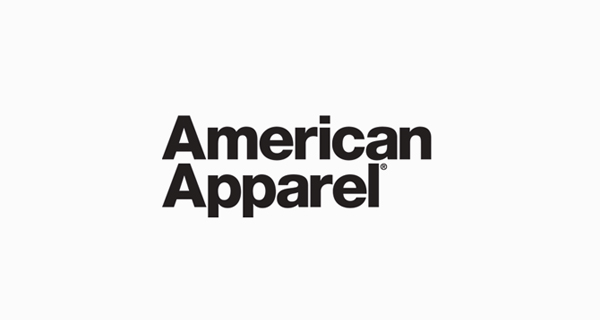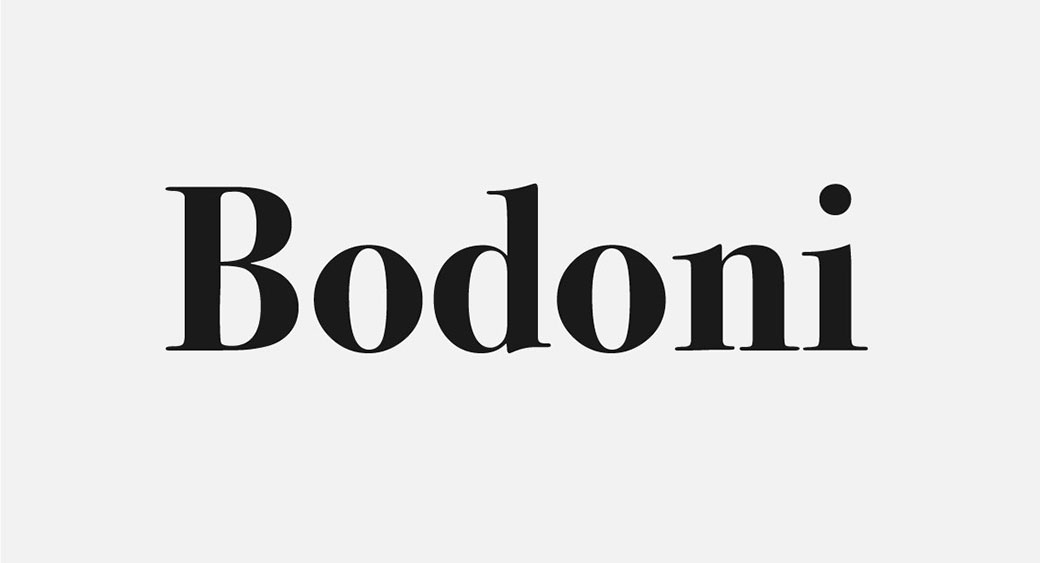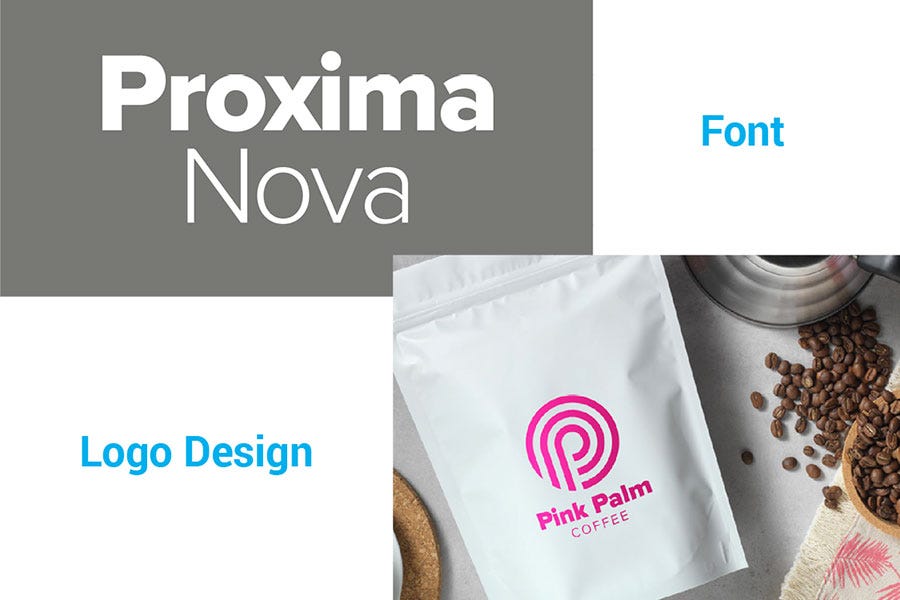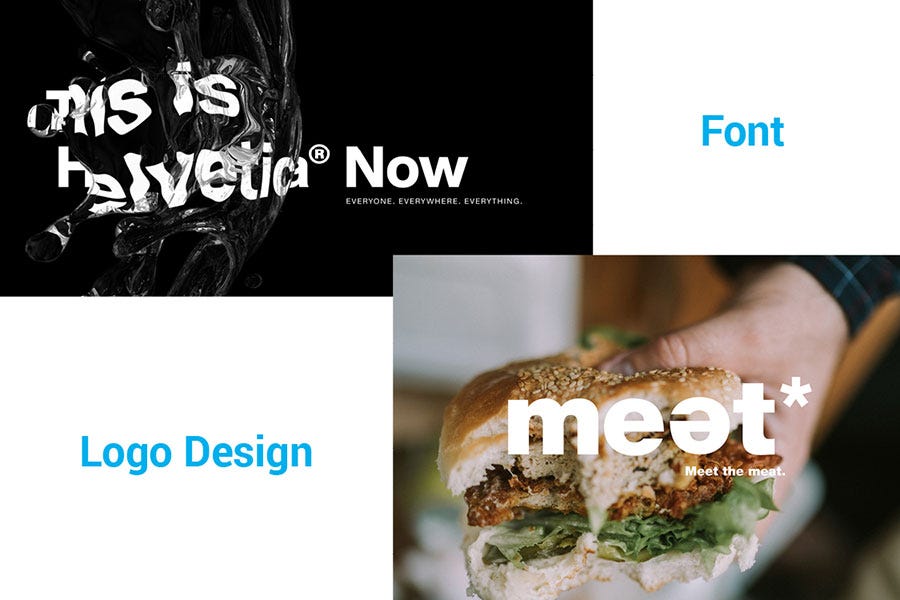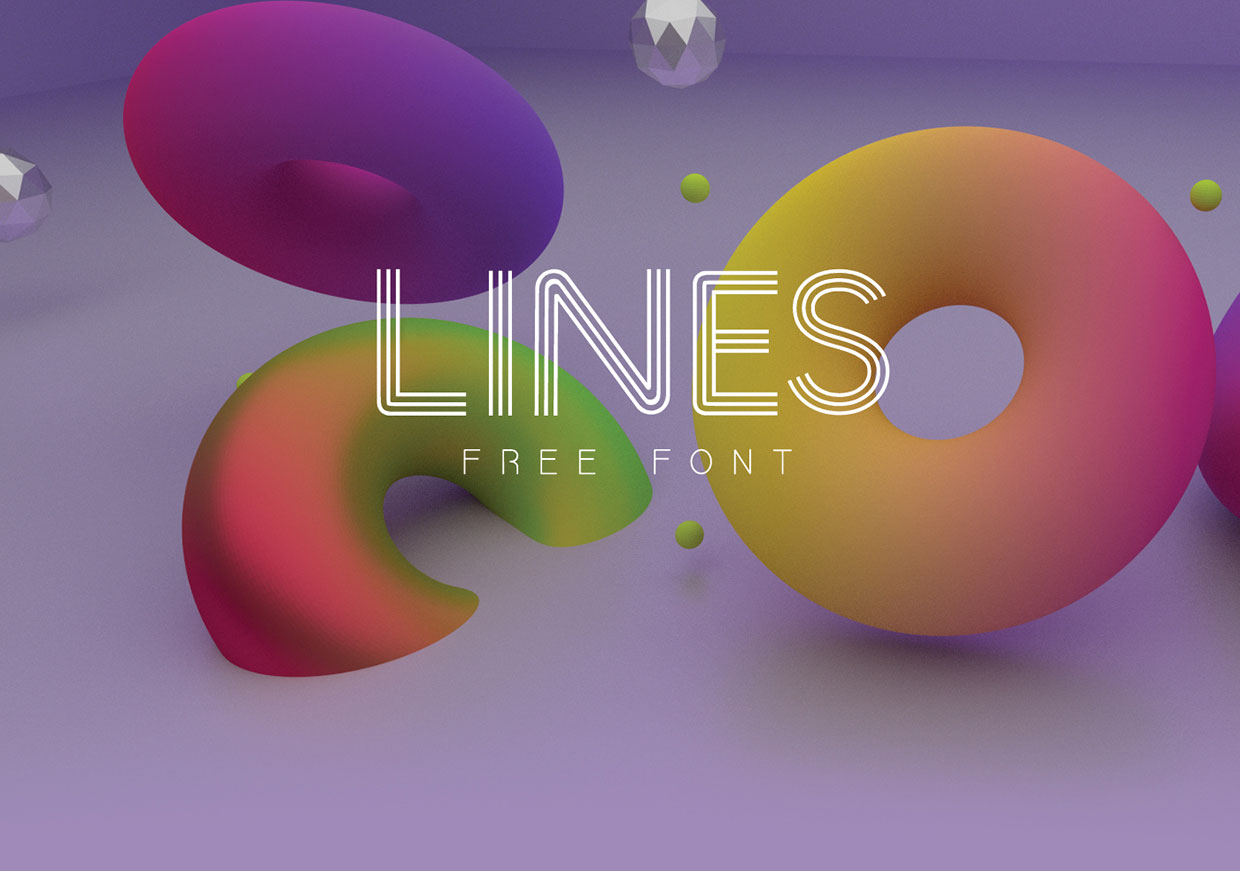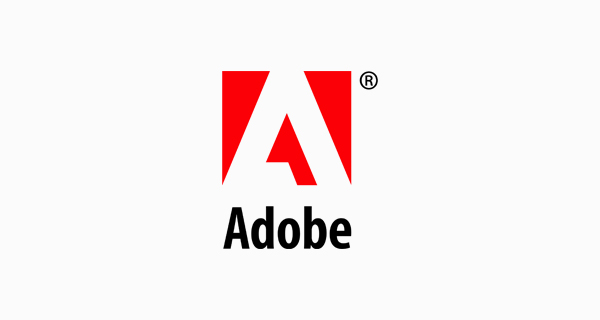
The spaced lettering of the Khula font in this logo really emphasises the text. This professional font by Adobe Fonts is elegance par excellence.
Randrake is a modern logo font that comes with a stylish script design.
Fonts used for logo design. The type of font you choose for your logo determines whether it is a formal mark or an occasional mark. The Sackers Gothic font is highly adaptable to logo or in social messages or in a book cover design. The most popular typeface among designers isnt it.
Created with geometric forms it features graceful turns and stylish lines. You could use sans serif fonts in. 50 Best Fonts for Logo Design FLIX Unique Display Logo Font.
Logo fonts are essential for the visual appearance of your brand name. Sackers Gothic font was created by monotype design studio in 1994. Tahu is one of the best free logo font designs that has a handwritten character to it.
It is straight simple and crisp. Design Wizard Fonts Khula. TT Norms Pro is a geometric sans serif that features classic type character proportions.
In the User Interface world you just install the font and use it as it is. Although there are many other types of fonts used to design logos they are still sans-serif and sans-serif fonts as they play a key role in defining the brand and the business behind a logo. Best fonts for logo design 1.
Helvetica is the first choice of font for many. Qualy is a funky logo font design by takuya shinagawa for shina design released in 2021. TT Norms works equally well both in large text arrays or in headlines and is the one the indispensable.
This is a design of font that can be used for both personal as well as for commercial projects. Thin and thick strokes in this typeface can give your logo design an appealing look. Pair one of these free logo fonts with an icon and you are ready to start your business.
Types Of Popular Logo Fonts 1. If you like the idea of coming across as young forward-thinking and a little more fun to your target audience sans serif fonts are usually a good choice. Despite the font not being bold.
Creating the right logo for a brand is no easy task. It is sharp and is an engraver and therefore no lower cases are available in this family. The best sans serif fonts for logos exude a friendly and modern air.
How Many Logo Design Fonts Should you Use. The top 10 fonts you can use to design logos. The thin lettering of Cormorant has.
Pick a font style and type that works with the style of logo youre envisioning. Serifa free for personal use serifa is another typeface designed by the iconic. Randrake Modern Script Logo Font.
Brolink Sci-fi Logo. Another classic font you have seen the Garamond. Oswald font is a modern bold logo font choice perfect for brands that want to convey a strong modern and reliable personality.
It can also be used for animation t-shirt printing logos and posters. Top 10 fonts Helvetica. But before we list them out we have to understand that these fonts are meant to be used a little different than UI fonts.
One of the best modern fonts for Logo Design. It was first designed. A neat versatile font the Helvetica family is used.
Flix is a bold display font with a stylish rounded character design that gives it a. Poiret is a special typeface with pure light forms that are smooth and basic. It is a font type that apart from logo designing can also be used for creating T-shirts and posters.
Best Fonts for Designers for Modern Logo Design. Vilane is an elegant and sophisticated sans serif created by din studio foundry in 2021. Some brands use well-known and time-approved fonts such as Helvetica Arial and Gotham while others create their custom designs often based on or inspired by classic fonts.
Its easy to see why Teko is a font thats intended to be used for large display text like headlines. A powerful logo design with a bold sans-serif font by ultrastjarna There are several types of fonts or font families to choose from and each one tells a different brand story. Powered with 22 styles TT Commons is one of the best sans serif fonts for logos with low contrast.
One of the best modern typefaces for Modern Logo Design. The font is great for big signs titles labels headlines and various online graphic design formats. Looking for a logo with a modern and minimal style.
While Oswald font can be used for all sorts of projects I imagine it for fashion and beauty related businesses clothing cosmetics and. The Italian graphic designer or logo guru as one might say Emanuele Abrate runs an Instagram account all about logotypes. Logo fonts should not be seen as final components right out of the box.
It is a sans serif font family based on the form of Roman letters.